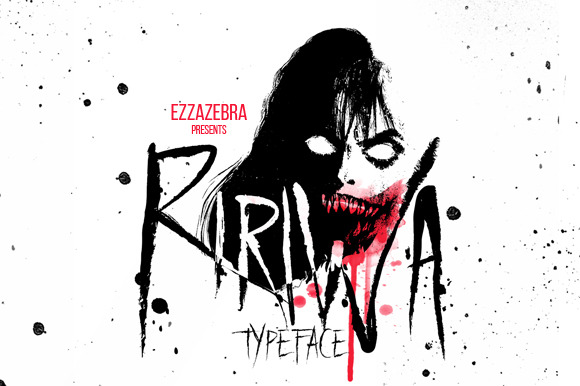
Ririwa Typeface
RiriwaTypeface is a gothic based on brush font for headline, display or experimental. The name "Ririwa" came from Sundanese word for the term of ghost or devil. The font especially use for specifictheme including horror, mistery, metal bands, thriller etc. The characters prefers to use in expressional and disordered with different size, position and ignore the baseline. And for the design, prefers to use the effect from brush or splatter.